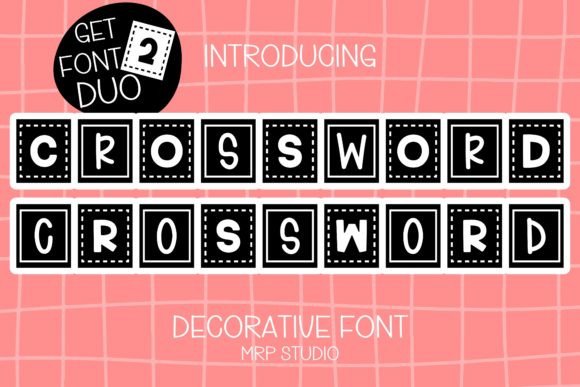
Introducing Crossword Font, the perfect choice for adding a playful and adorable touch to your creative projects. Created by MRP STUDIO, this decorative font is specifically designed to captivate and engage users in a variety of settings.
Ideal for colorful child-related projects, Crossword Font brings a sense of fun and whimsy to any design. Whether you're working on school-related materials, mom projects, or even party decorations, this font is guaranteed to enhance the overall aesthetic and capture attention.
One of the main reasons why Crossword Font stands out is its versatility. With its eye-catching and distinctive style, it can be used for a wide range of purposes. From invitations and posters to blogs and social media posts, this font adds a friendly and inviting touch that instantly draws people in.
Are you looking to create a modern resume that stands out from the crowd? Look no further! Crossword Font is the perfect choice for those seeking the best fonts for a modern resume. Its unique and captivating design will help you make a lasting impression on potential employers.
But it doesn't stop there. Crossword Font is also an excellent choice for event-related materials such as wedding invitations and greeting cards. Its charming appearance adds a touch of elegance and uniqueness to any special occasion.
In a world where visual appeal is crucial, Crossword Font is a must-have for any designer or creative individual. By incorporating this font into your projects, you can elevate the overall look and feel, setting yourself apart from the competition.